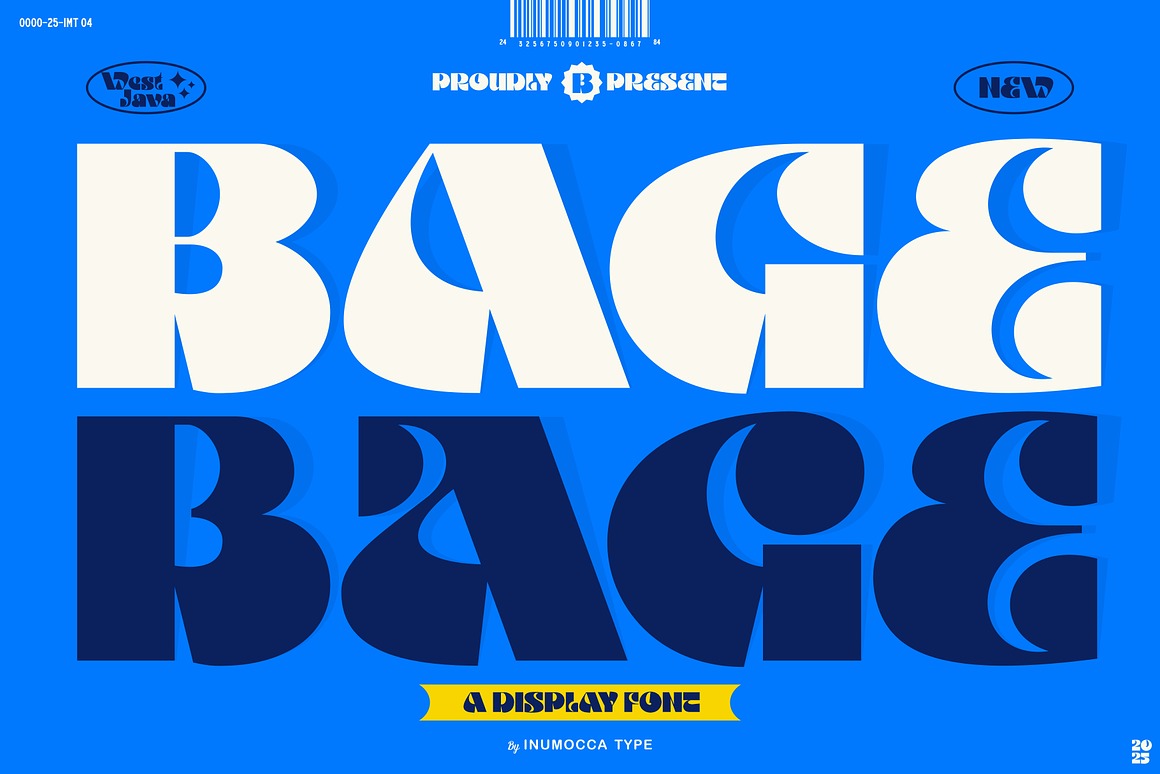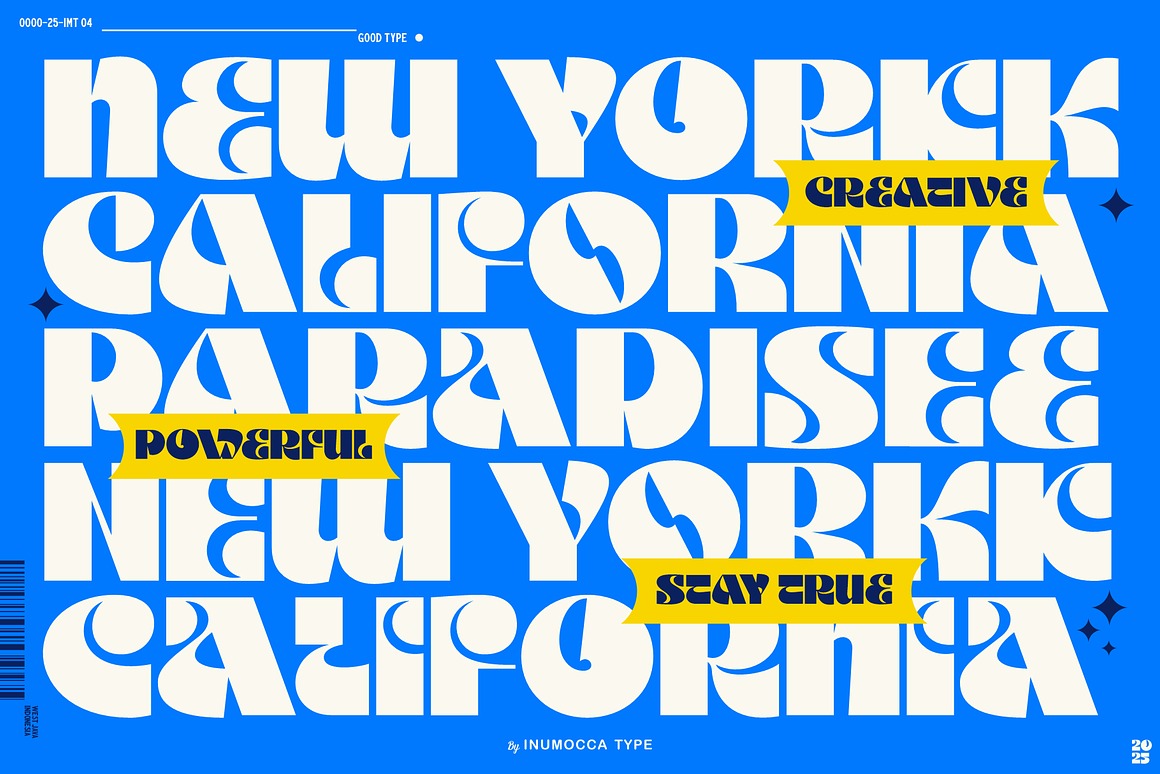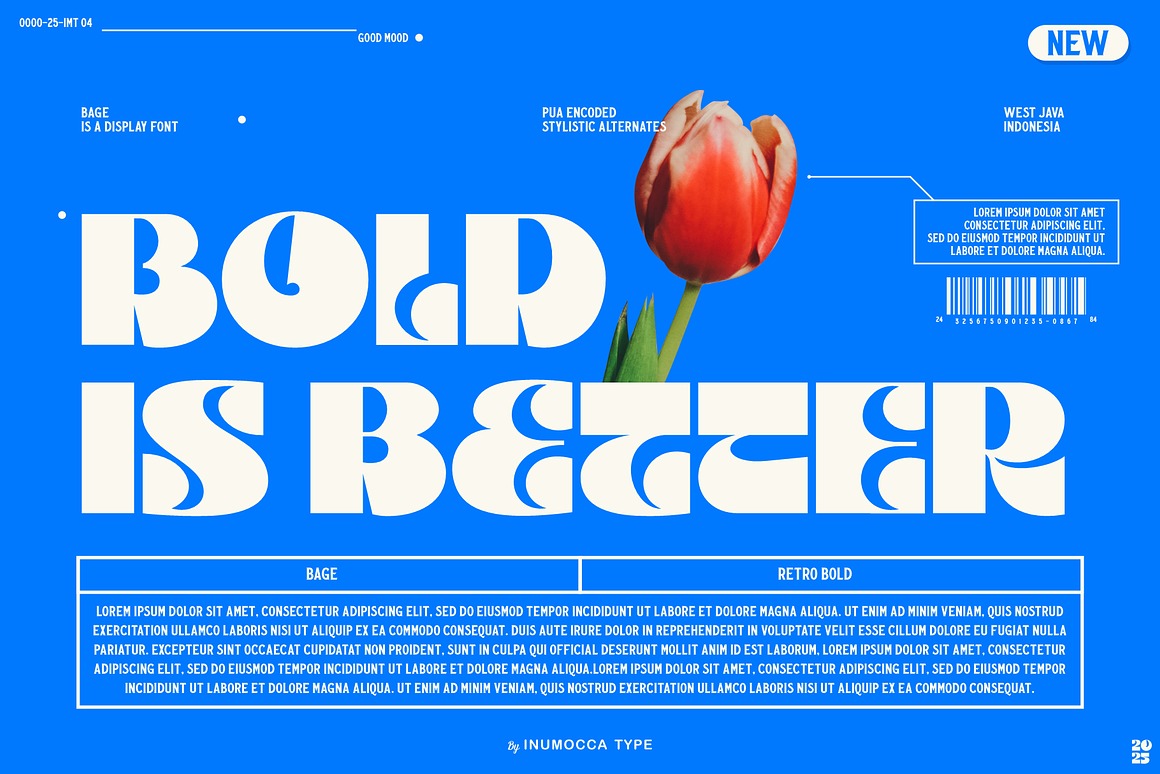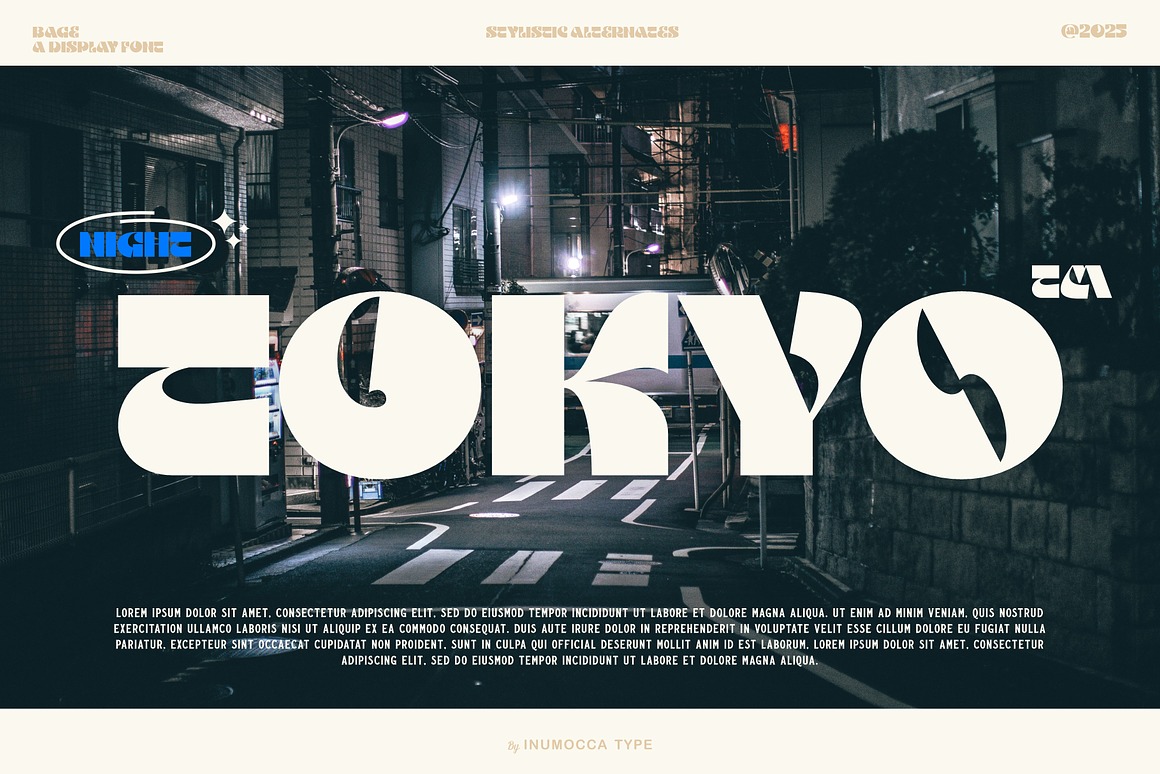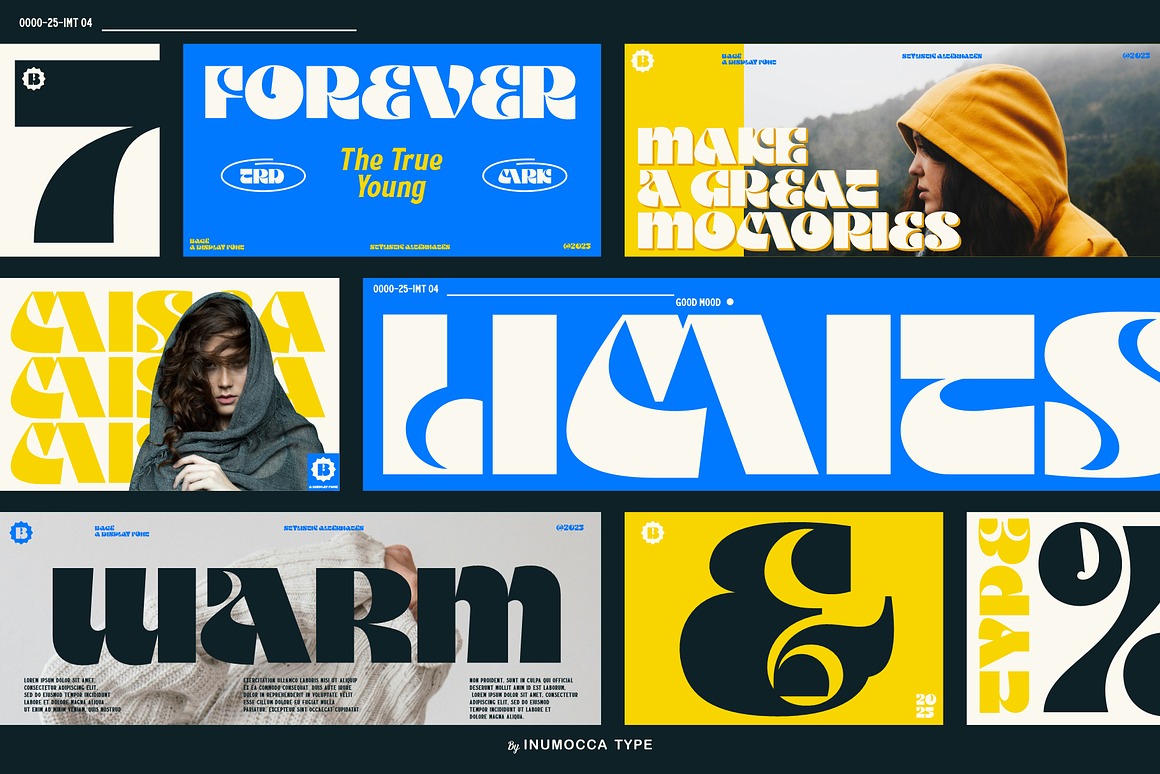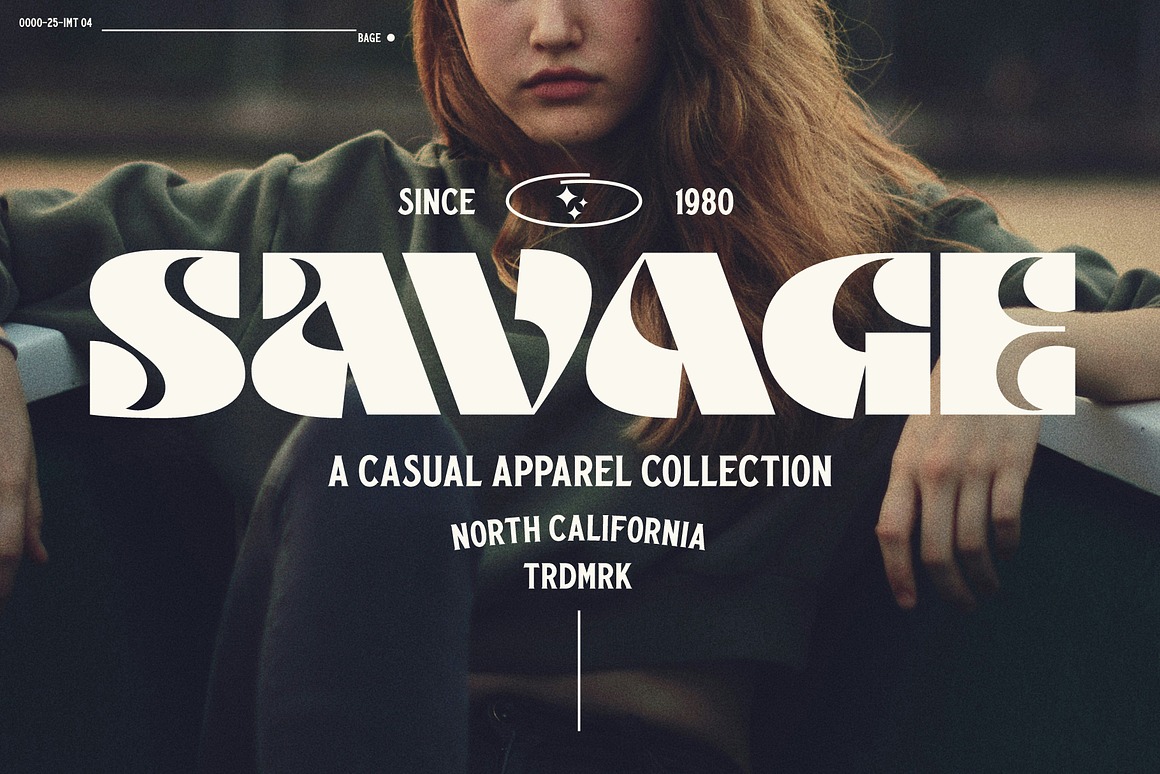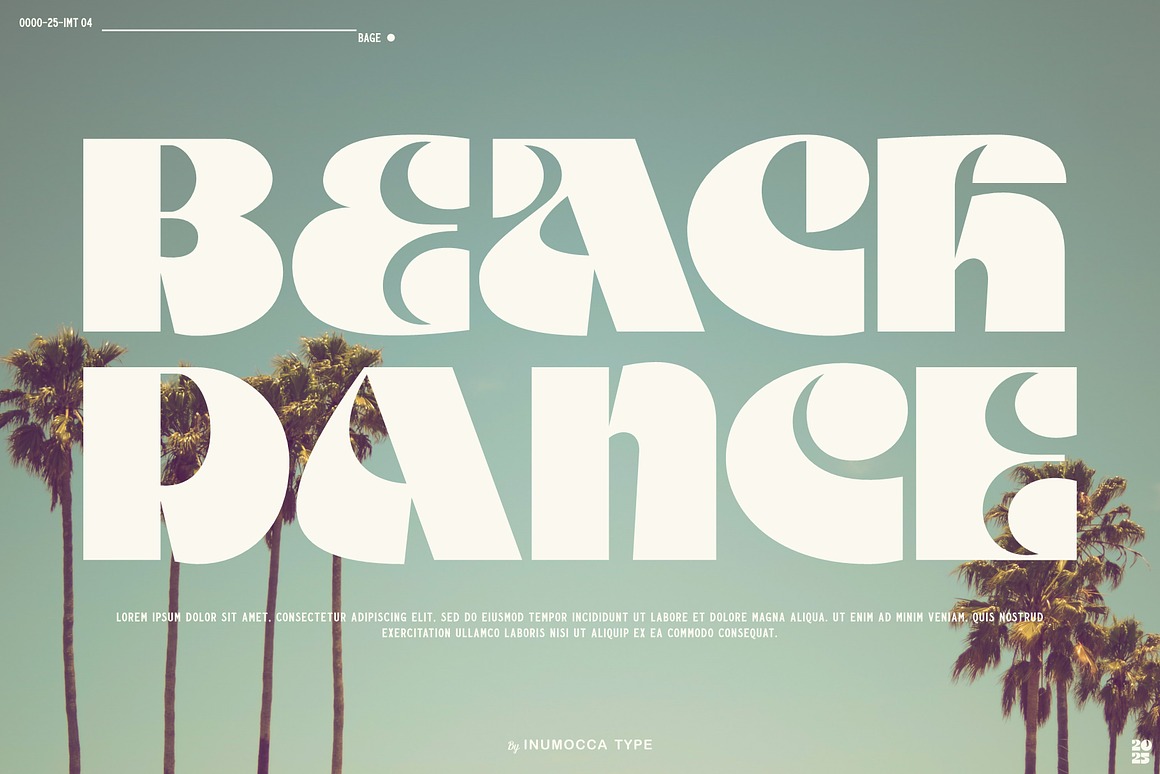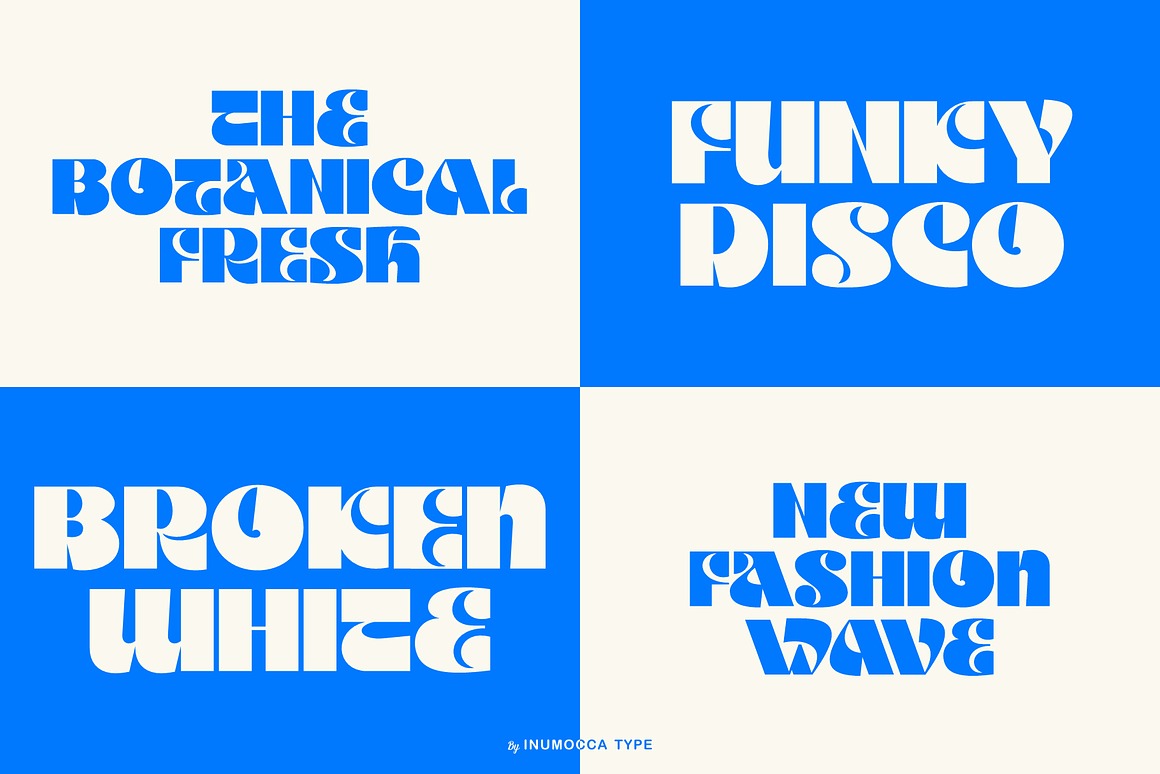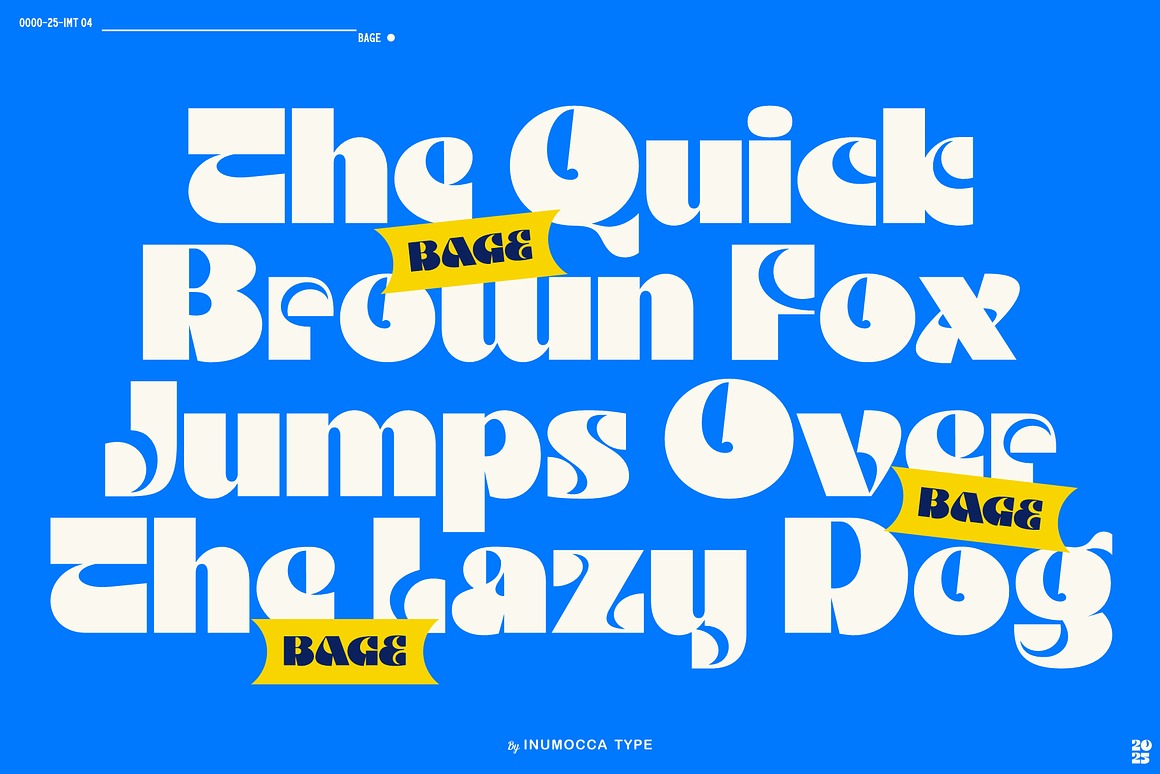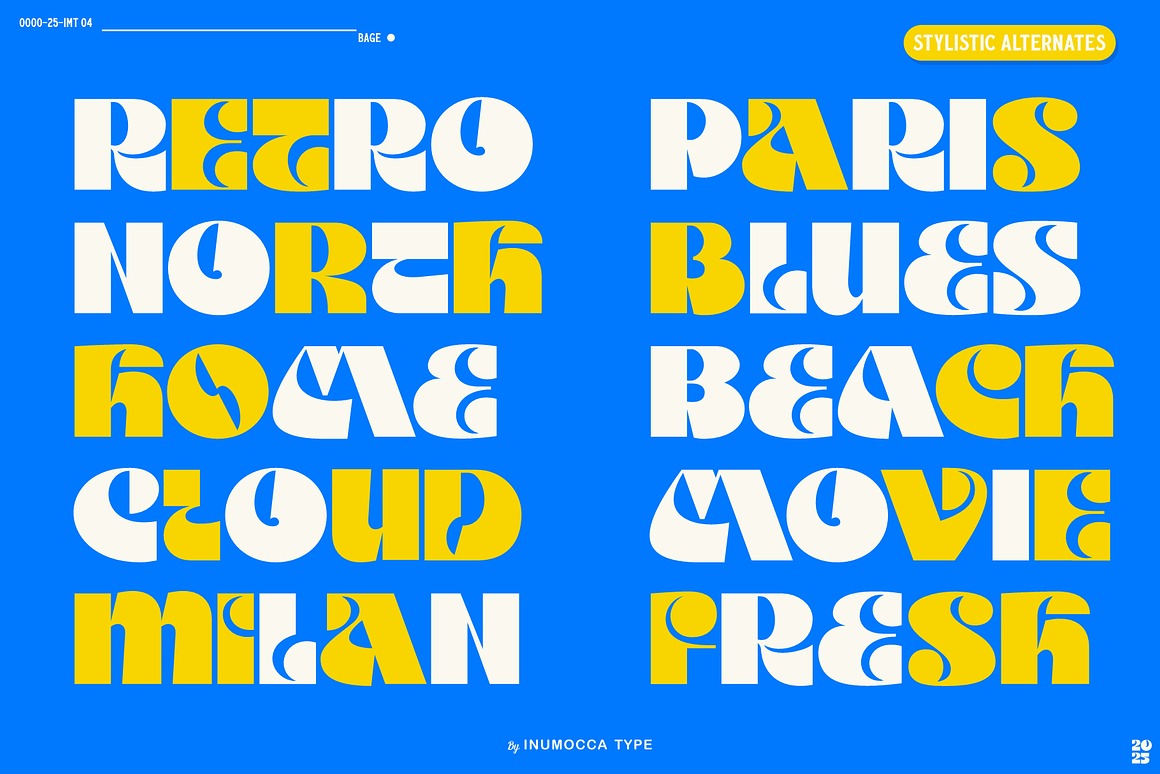
4 Bold & Trendy Display Fonts
Brand new unique & creative style typography bundle with 4 multilingual display font sets! All these fonts are trendy, sharp & groovy so you can use it for any kind of retro style branding projects or T-shirt designs 😉
4 Bold & Trendy Display Fonts from inumocca contains 4 unique, modern & retro display fonts for your new projects! Don’t miss this creative & groovy style font & branding bundle 😉
• 4 creative, bold & retro display fonts for your new trendy projects!
• Great for any branding projects, posters or T-shirt designs…
• Multilingual support, stylistic alternates & ligatures
4 creative, bold & retro display fonts for your new trendy projects!
Trendy, sharp, modern, groovy, crazy & retro style display fonts for your creative projects. Artistic and unique style on these fonts will be great for any branding project. Lot of alternates and ligatures will help you to create original logo design or website header! Enjoy 🙂
01. Bage from inumocca
Bage is A Display Font, Retro Bold a unique vibe its perpect for short headlines, short text and Logos,Bage creates a unique rhythm in any body of text, Great for covering your Project where a sense of fun, delight and visual appeal is essential. like Branding, Logos, packaging Design, Poster,Lettering, and more your project design.
• Stylistic Alternates (ss01)
02. Morca from inumocca
Morca is A Bold Display Font, Extra Bold square, dynamic, Funky, Chunky and Cool font Realy playful and Bold with soft corner.its perpect for an image fill effect while still being legible. Great for covering your Project, like Lettering, Website Interface, Magazine, Branding, Poster, wedding invitations, Quotes Lettering, Logos, and more your project design.
• Stylistic Alternates (ss01)
03. Rollet Works from inumocca
Rollet Works is A Display Retro typeface, simple Bold and Retro Unique Character add strength to any visual appeal, like Branding, Movie Title, Headline Letter, Bookcover or Book Content, Magazine cover, Poster, Quotes Lettering, Logos, and more your project design.
• Stylistic Alternates (ss01)
• Ligatures
04. Rebel Rush from inumocca
Rebel Rush is A Display typeface, Bold and Fresh style Retro and modern taste, Eyecatching and powerfull. Really playful typeface to covering your Project, like Lettering, Website Interface, Magazine, Branding, Poster, wedding invitations, Quotes Lettering, Logos, and more your project design.
• Stylistic Alternates (ss01)